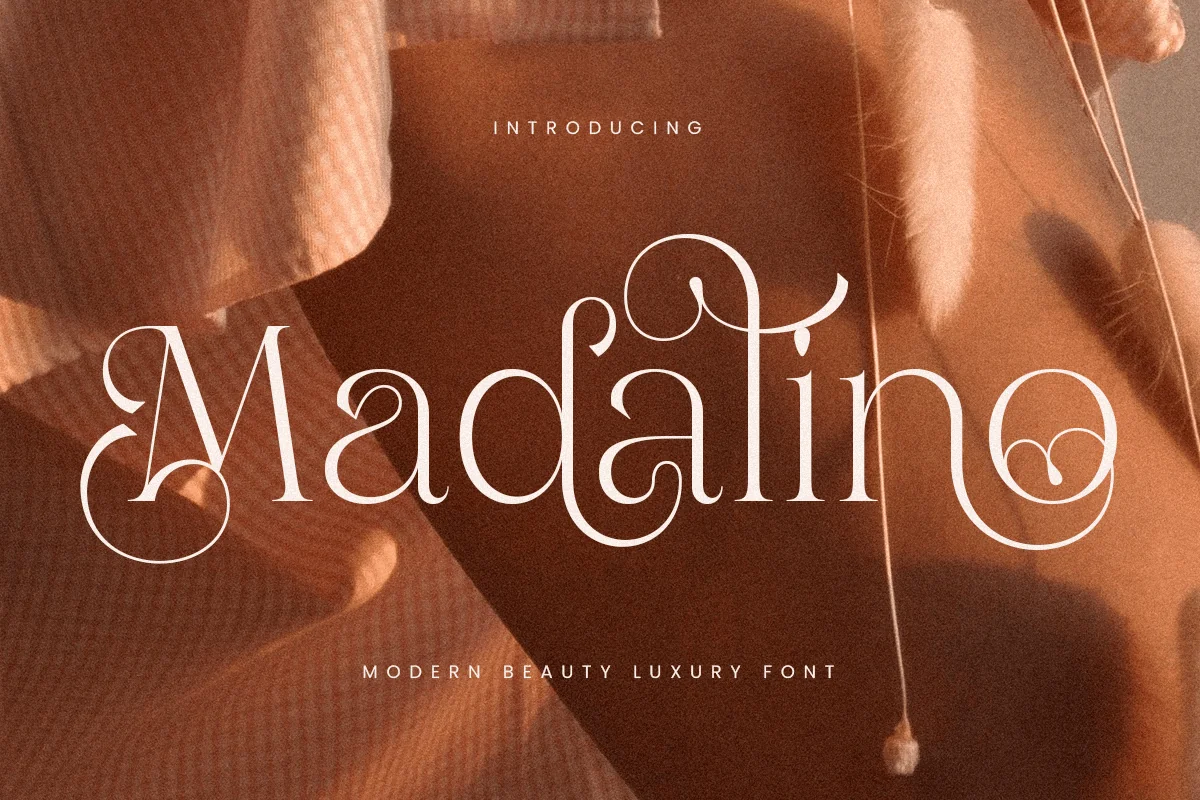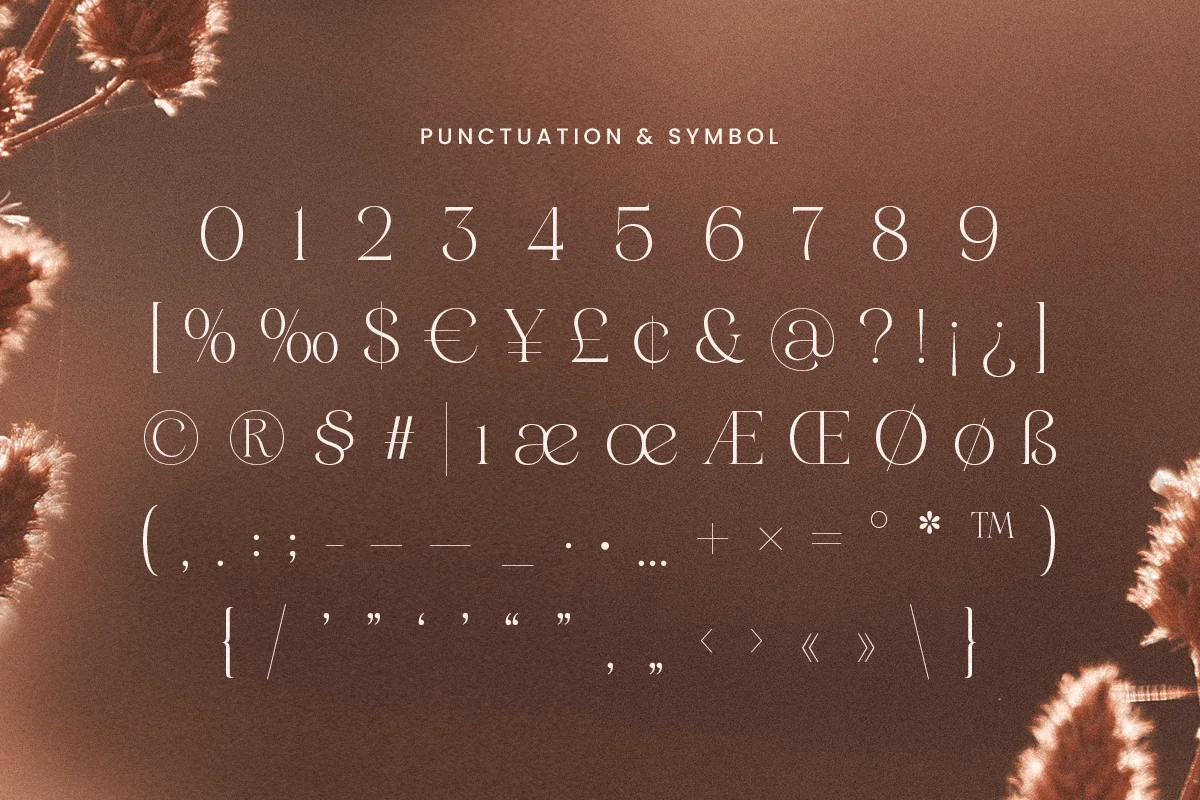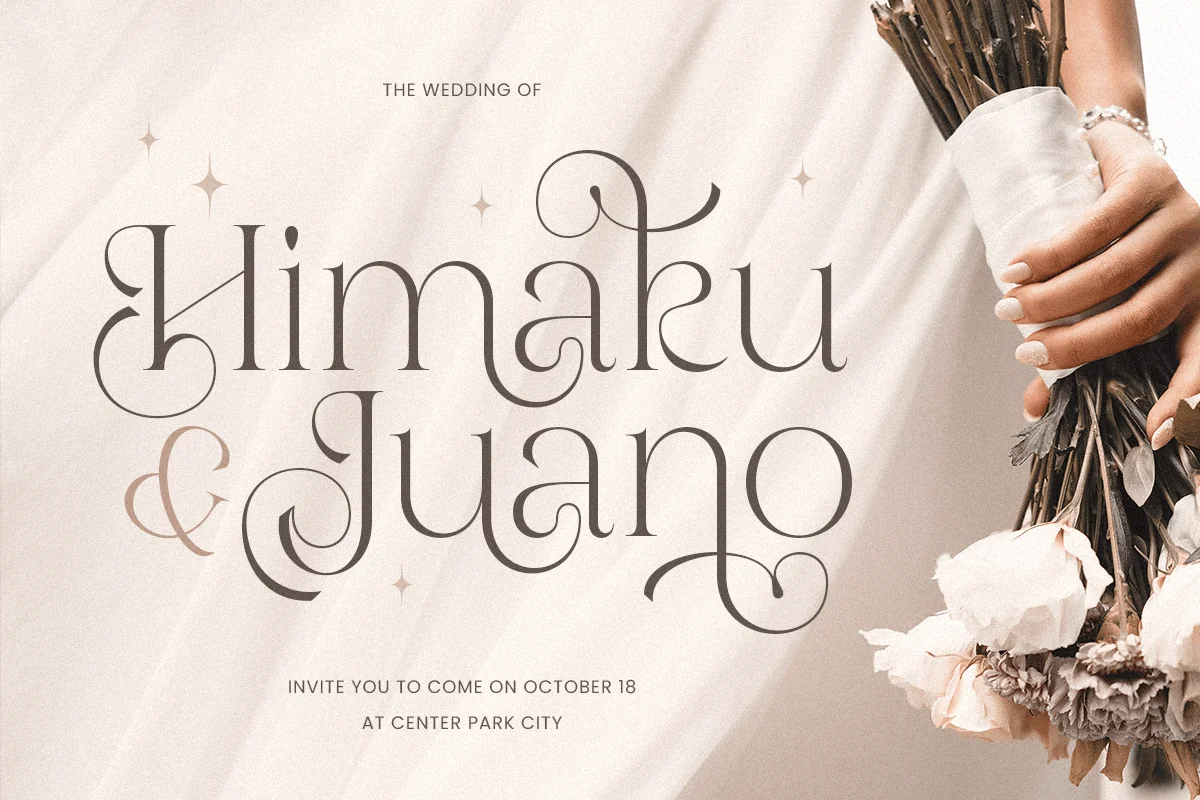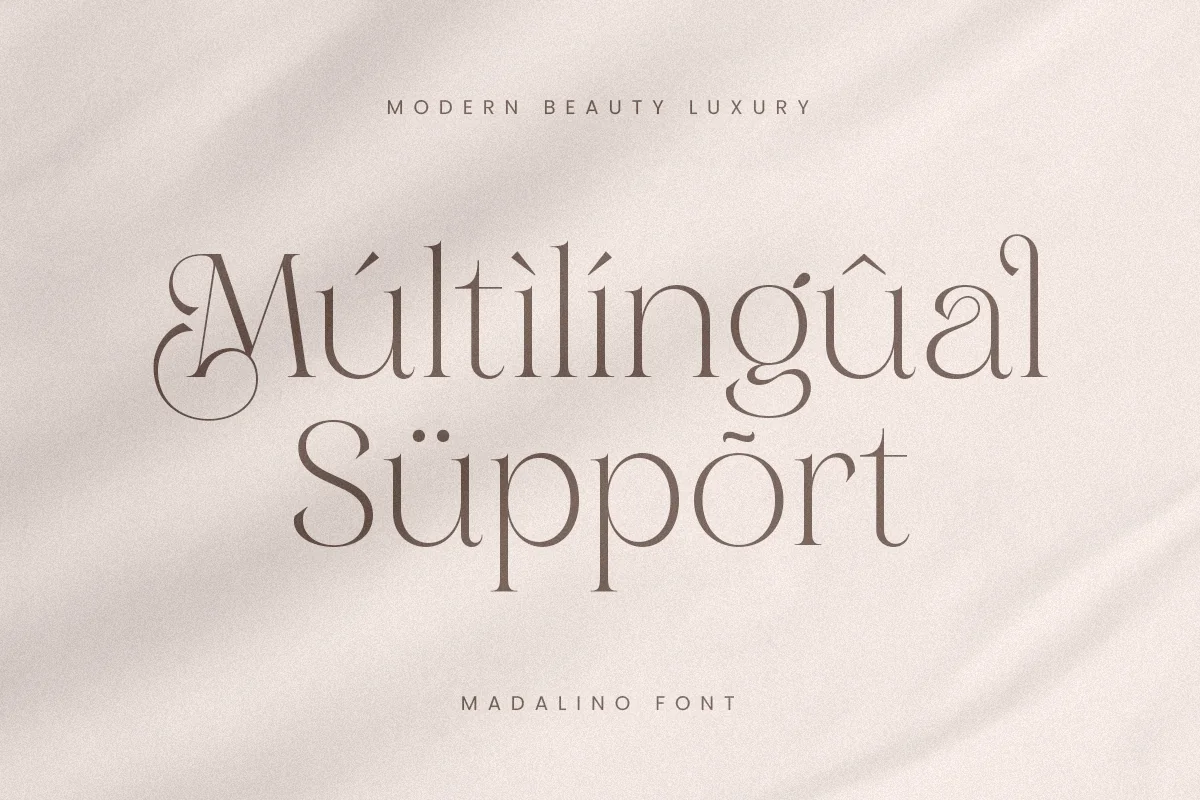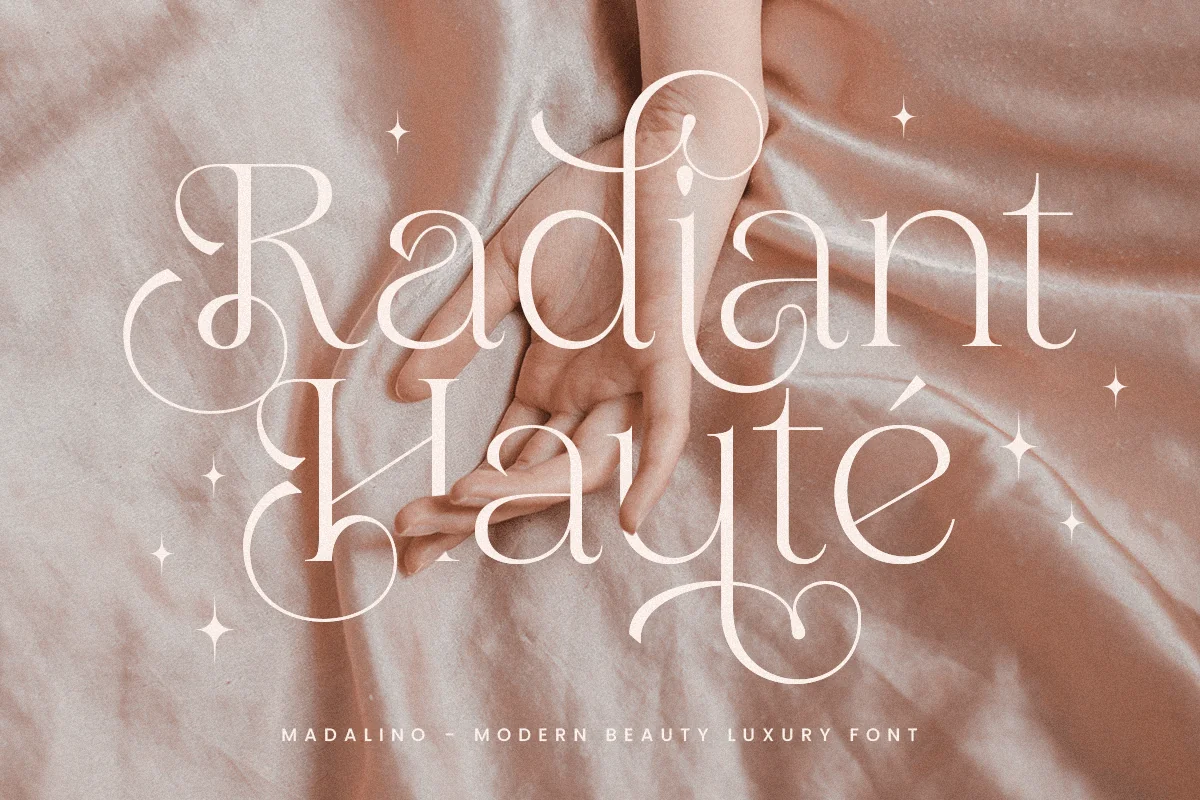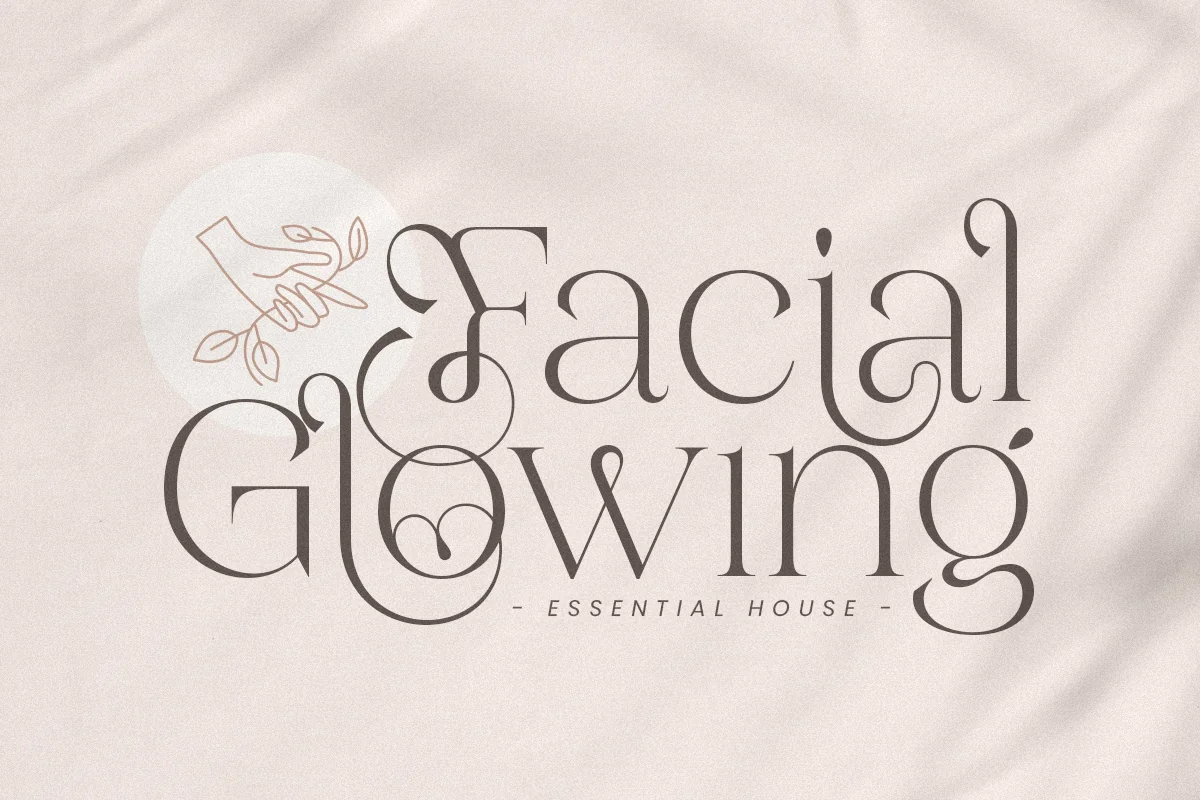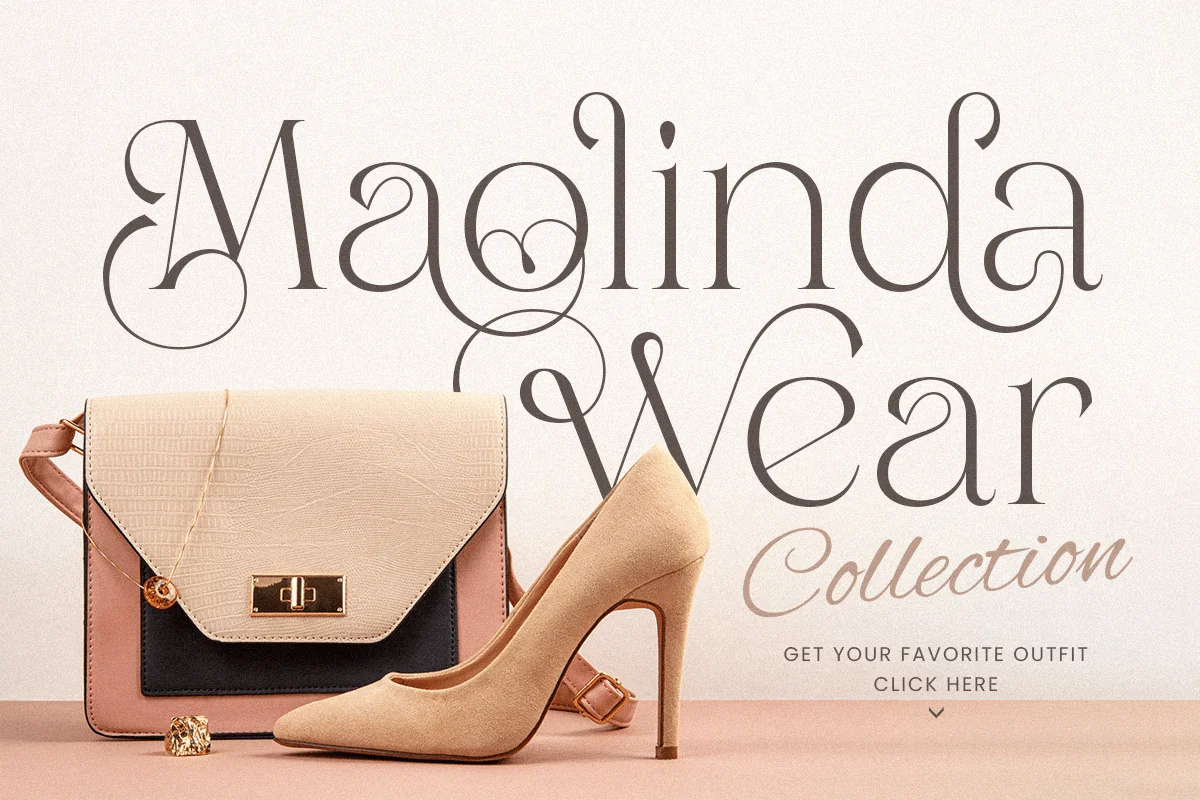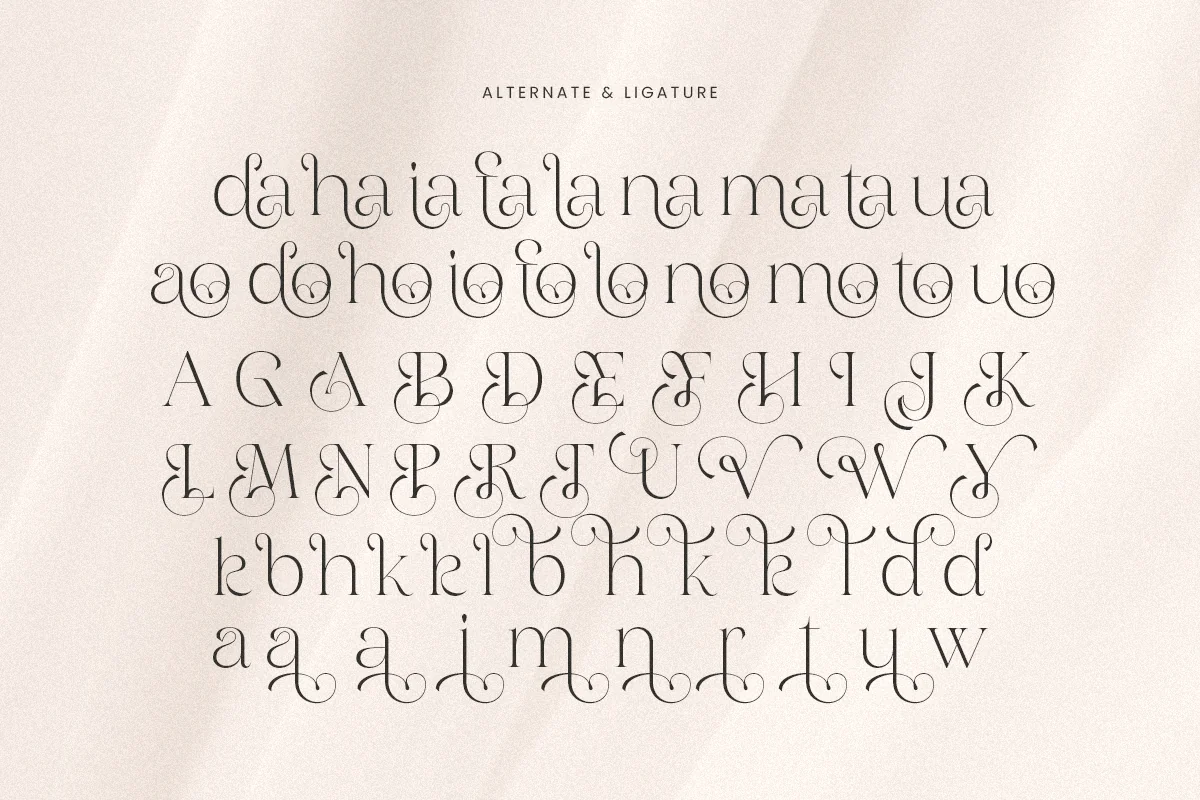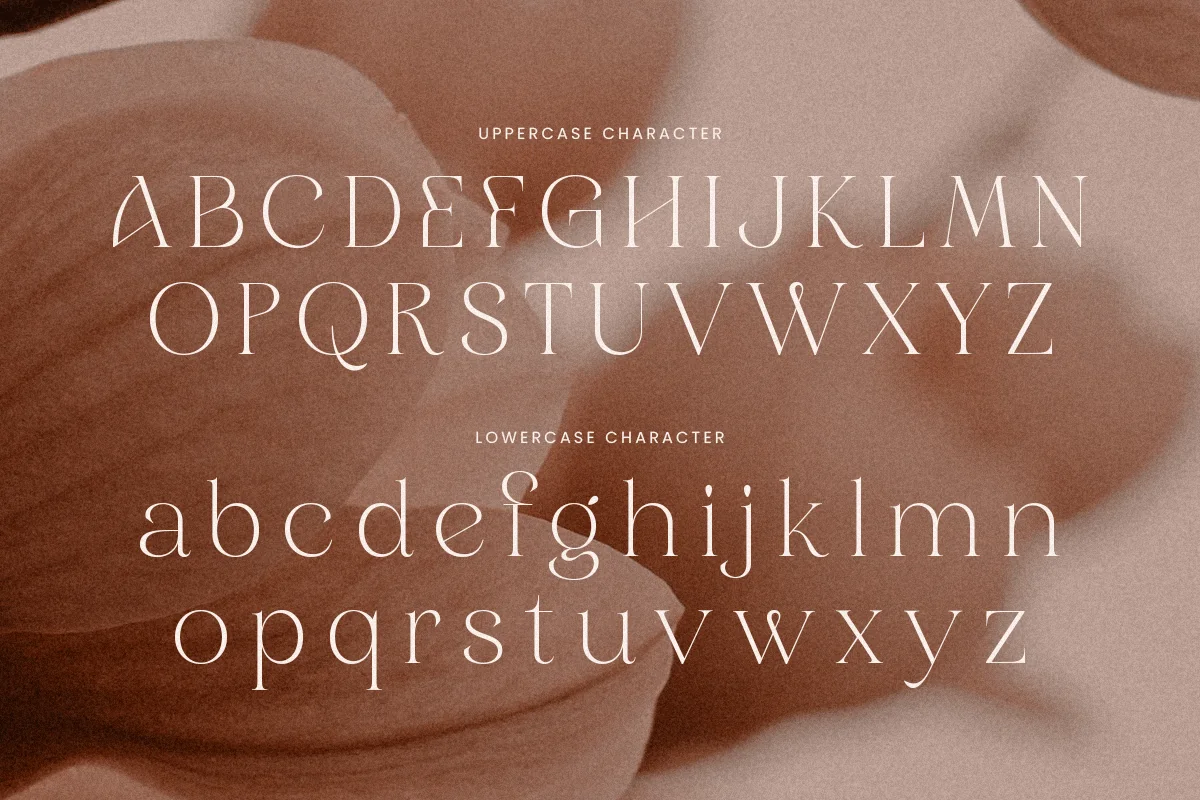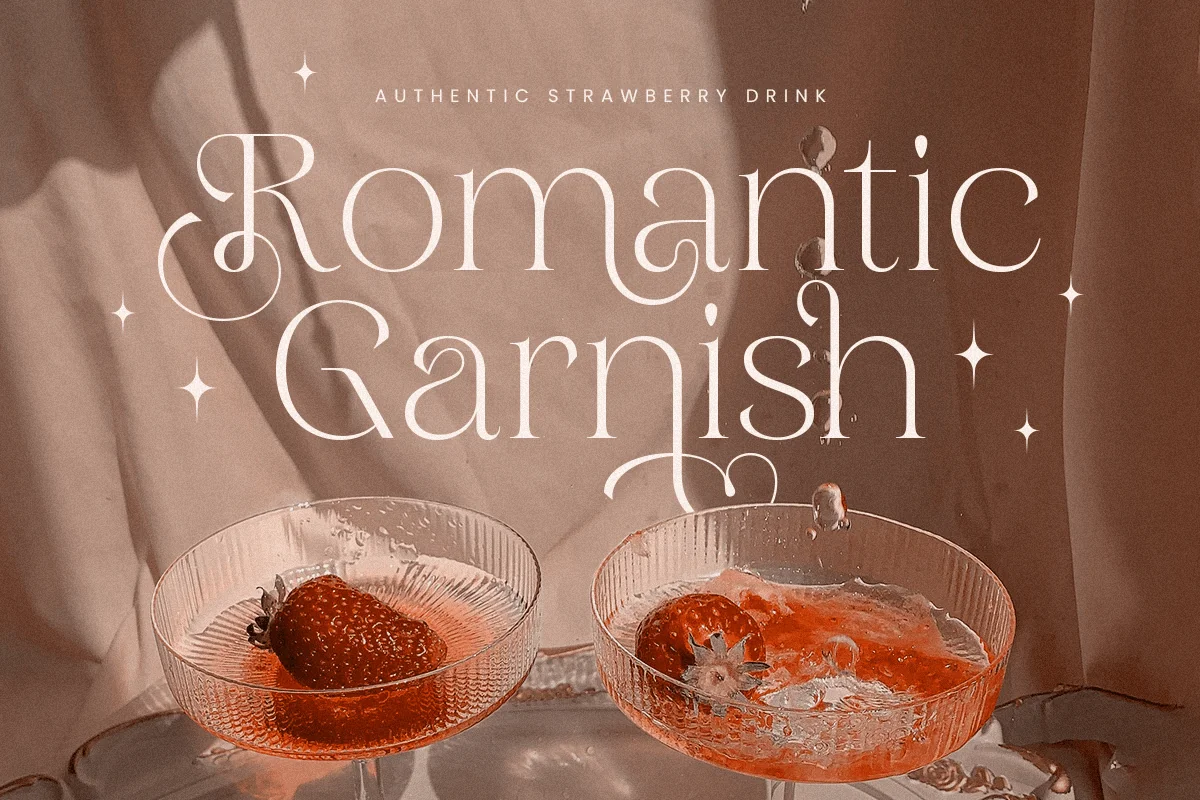
Madalino – Modern Beauty Luxury Font
Madalino is a modern beauty luxury font, meticulously designed to add a sense of sophistication and elegance to your projects. With its delicate yet bold curves, this typeface embodies both modern aesthetics and classic luxury, making it the perfect choice for upscale branding, high-end logos, and editorial designs that require a touch of exclusivity.
Whether used for fashion campaigns, luxury product packaging, or exclusive event invitations, Madalino’s refined character set ensures your project exudes style and grace. Its harmonious letterforms provide seamless readability while maintaining a luxurious visual appeal, ideal for both digital and print mediums.
Infuse your designs with the timeless elegance of Madalino. The font’s versatility allows for creative freedom, ensuring your work stands out with sophistication and charm, making it an indispensable tool for any designer looking to elevate their portfolio.
Madalino Modern Beauty Luxury Font Features:
- Elegant Ligature & Alternative Characters Ready
Multilingual Characters available for:
Afrikaans, Albanian, Asu, Basque, Bemba, Bena, Breton, Chiga, Cornish, Dutch, English, Estonian, Filipino, Finnish, Friulian, Galician, German, Gusii, Indonesian, Irish, Italian, Kabuverdianu, Kalenjin, Kinyarwanda, Luo, Luxembourgish, Luyia, Machame, Makhuwa-Meetto, Makonde, Malagasy, Manx, Morisyen, North Ndebele, Nyankole, Oromo, Portuguese, Quechua, Romansh, Rombo, Rundi, Rwa, Samburu, Sango, Sangu, Scottish Gaelic, Sena, Shambala, Shona, Soga, Somali, Spanish, Swahili, Swedish, Swiss.